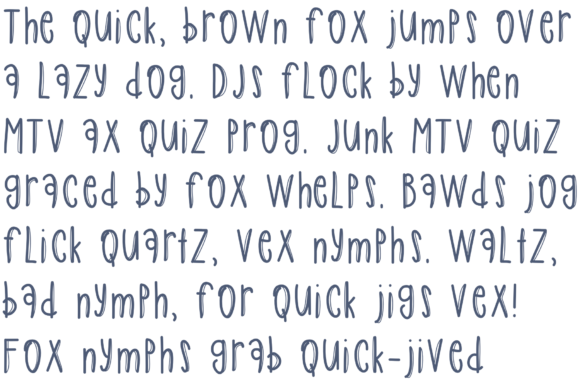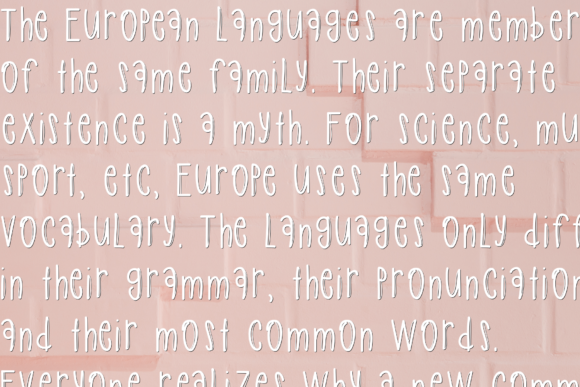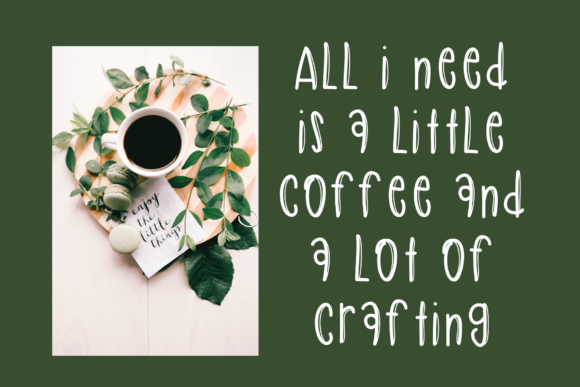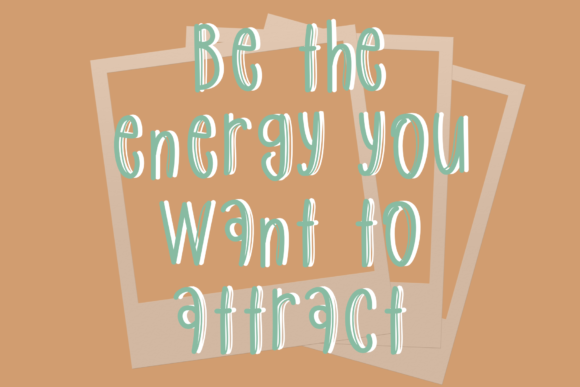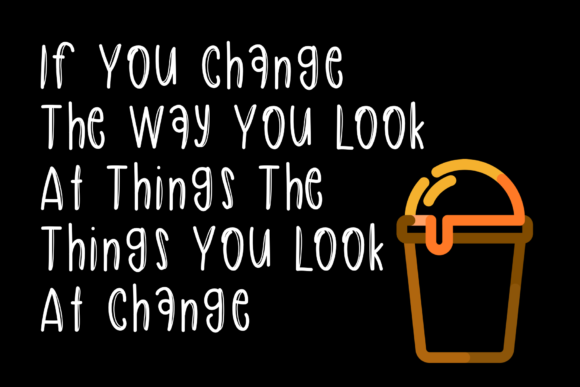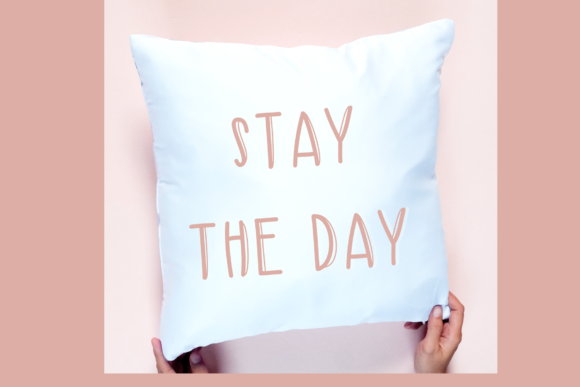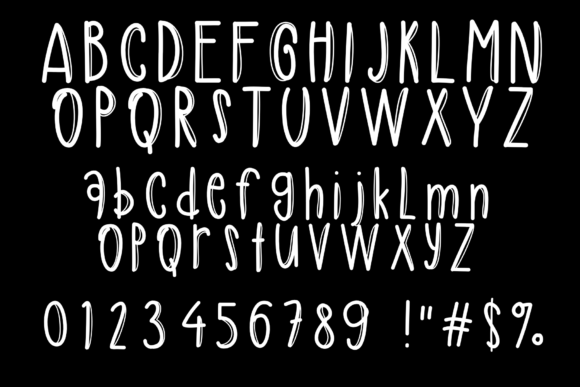
Samantha Font
About Samantha Font
Samantha is a sweet and friendly handwritten font. Its natural and unique style makes it incredibly fitting to a large pool of designs. The only limit is your imagination!